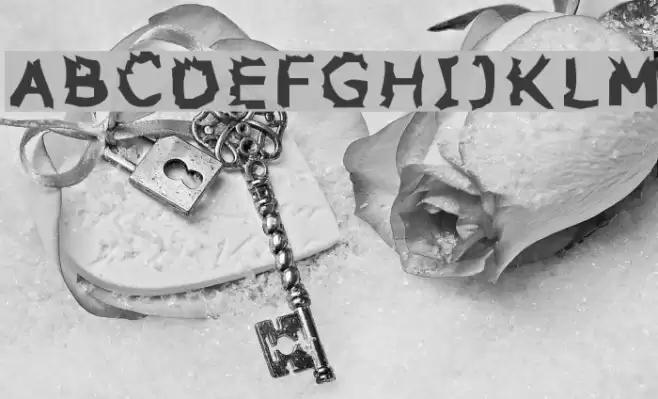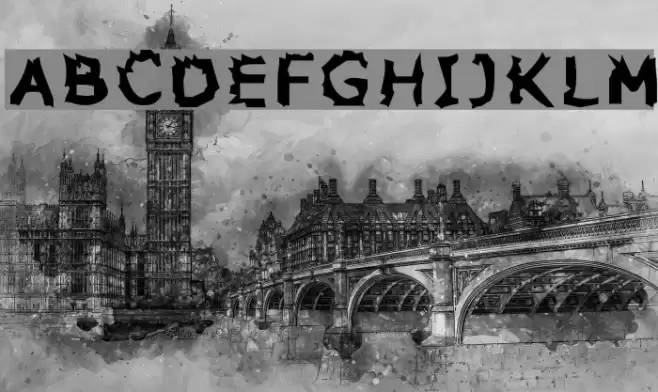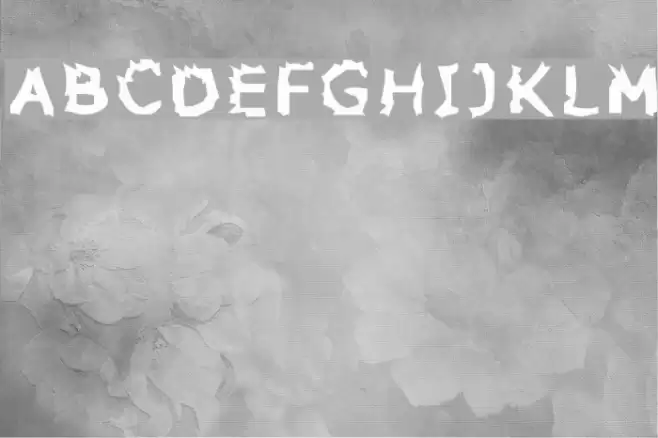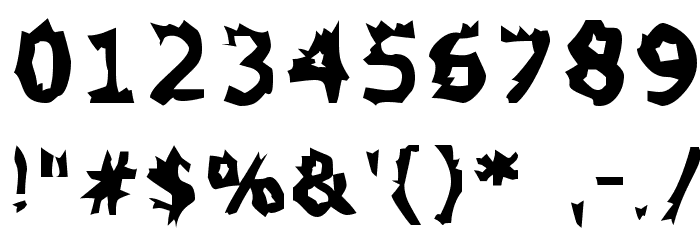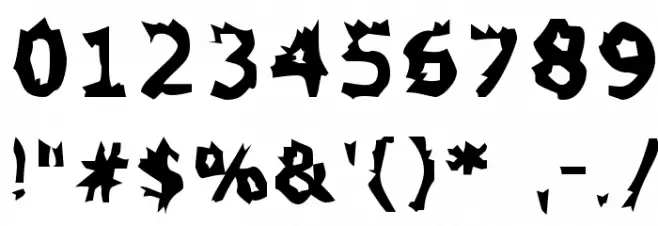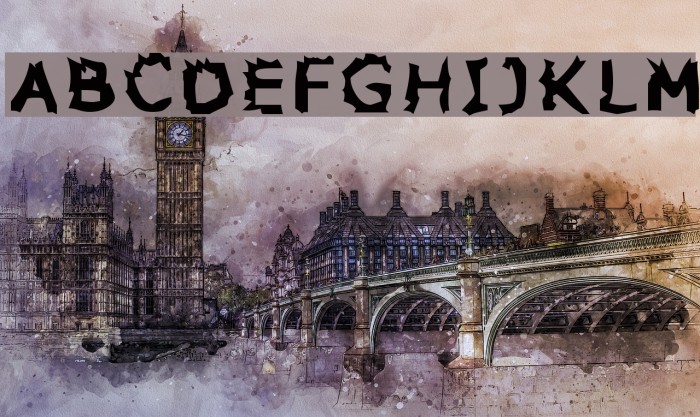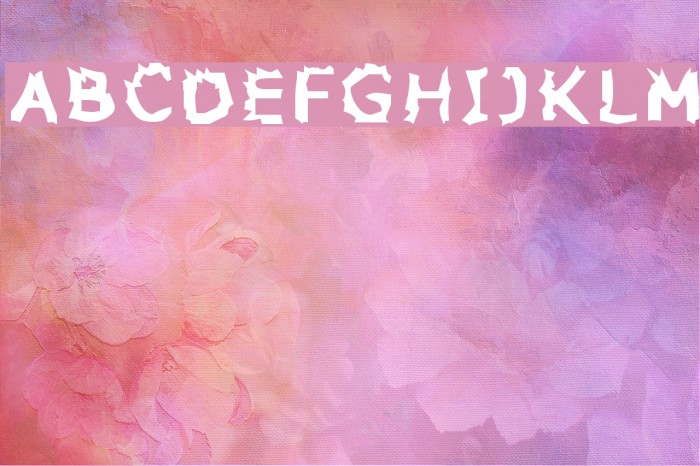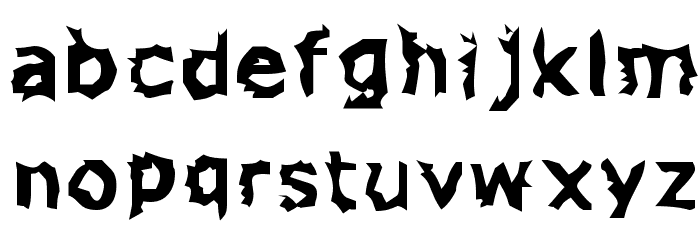
Zone23_explosions Font
Zone23_explosions Description
This font features a bold and jagged design, reminiscent of explosive or shattered elements. Each character is uniquely crafted with sharp edges and irregular shapes, giving it a dynamic and chaotic appearance. The uppercase and lowercase letters maintain a consistent style, with the numbers and special characters following suit. This font is highly decorative and stands out due to its aggressive and energetic look, making it suitable for attention-grabbing designs.
A bold, jagged font with explosive, chaotic elements from Decorative fonts.
- Proposed Projects: Ideal for use in posters, video game titles, action movie graphics, or any project requiring a dramatic and impactful visual style.